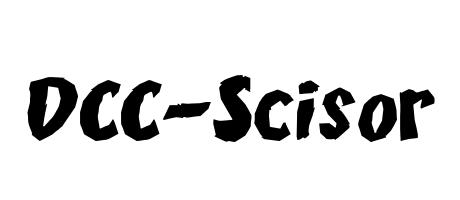
DCC Scisor
DCC-Scisor is a bold, playful display typeface. Its chunky, slightly irregular letterforms suggest a hand-drawn quality, adding a touch of whimsy. The letters are tightly kerned, creating a compact and energetic feel. The style evokes a sense of fun and informality, suitable for logos, headlines, or playful branding.